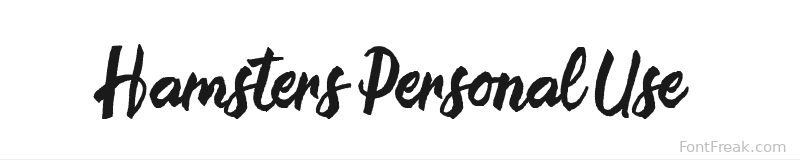
Hamsters Personal Use
About Hamsters Personal Use
Hamsters Personal Use is a captivating display font designed by Billy Argel Fonts. This handwritten-style typeface exudes a playful and informal charm, making it a perfect choice for various creative projects. The font features a bold stroke weight that adds an eye-catching quality, while the fluid, flowing lines present a sense of spontaneity and warmth. Its slightly irregular spacing enhances the personal touch, allowing each character to stand out while contributing to an overall cohesive look.
This font is highly versatile, ideal for a range of applications. It works wonderfully for wedding invitations, where its whimsical nature can set a joyful tone. Additionally, it can be effectively utilized for movie posters, giving a lively and artistic flair that draws attention. Restaurant menus can also benefit from its unique style, adding character to the dining experience. For social media graphics, Hamsters Personal Use can help content creators establish a distinct identity that resonates with their audience.
What sets the Hamsters Personal Use font apart is its ability to convey personality and creativity effortlessly. It captures the essence of handwritten typography while maintaining a polished aesthetic, making it perfect for anyone seeking to add a touch of whimsy to their work. Whether you're designing a heartfelt invitation or a vibrant social media post, the Hamsters Personal Use font free download provides a delightful option that will elevate your projects and engage your audience.